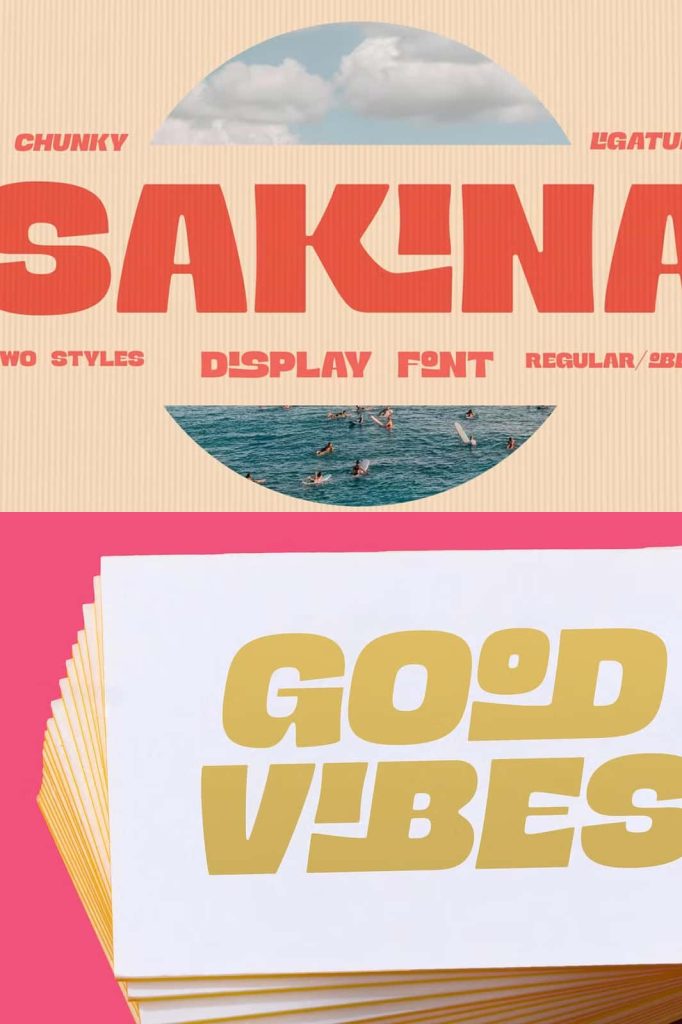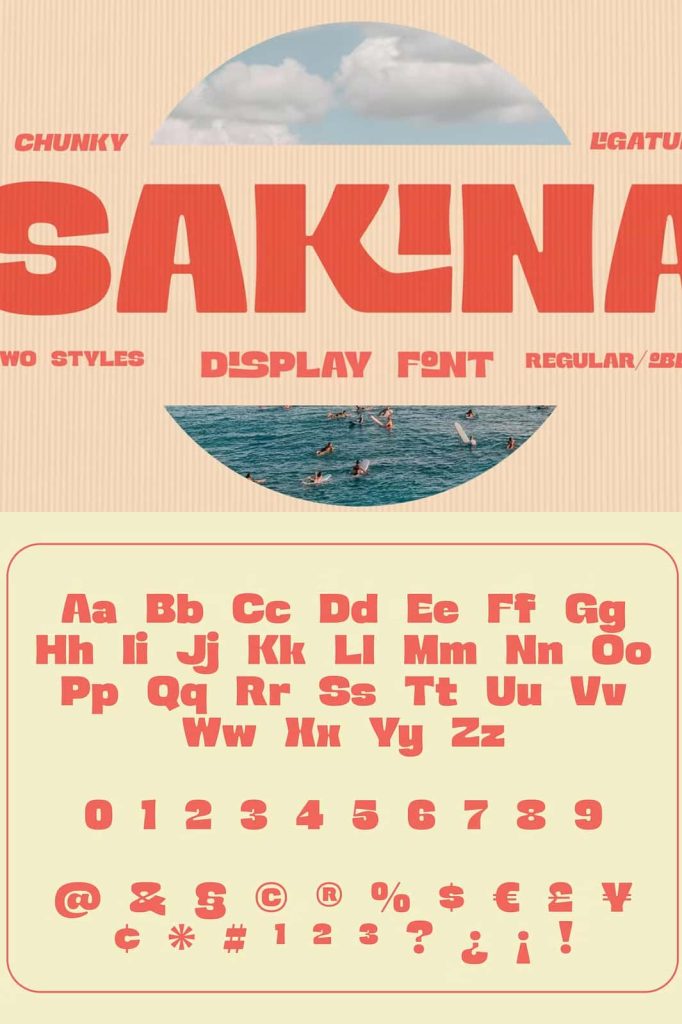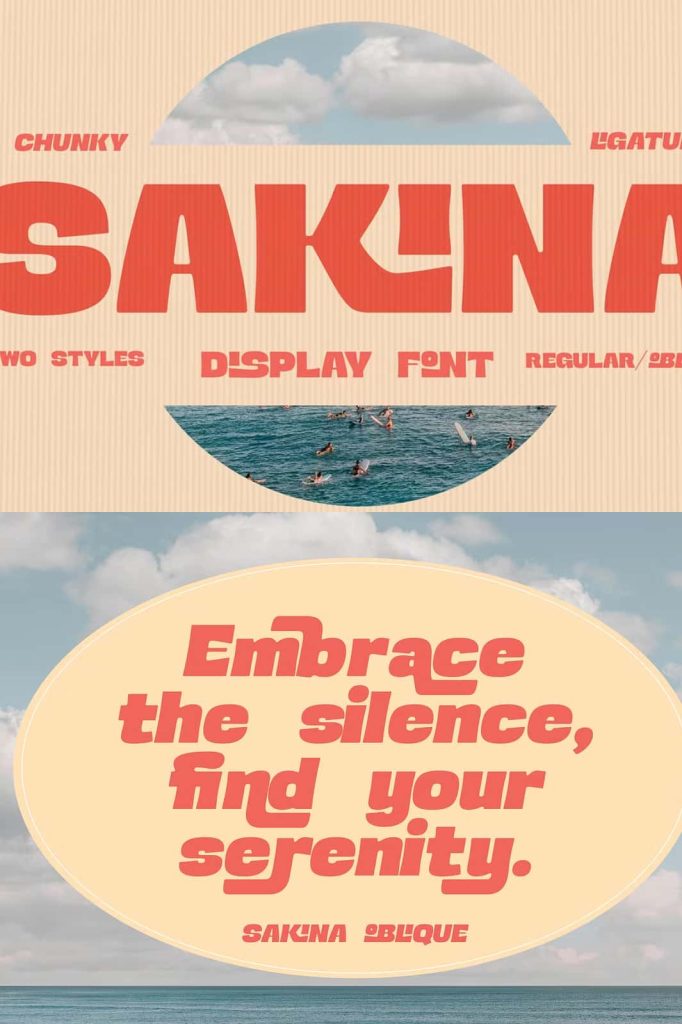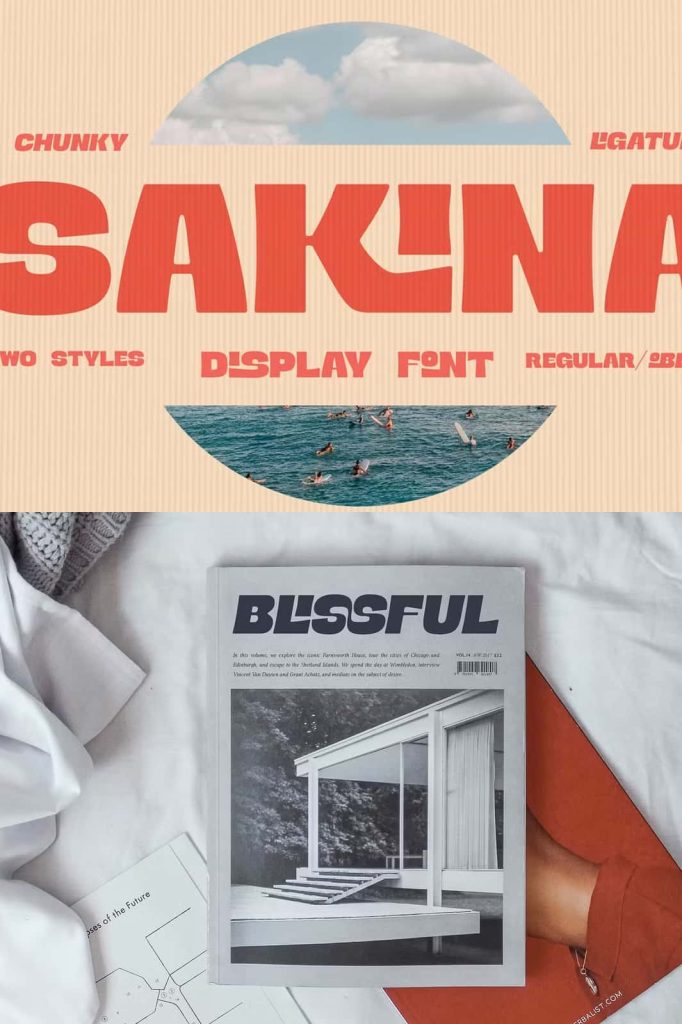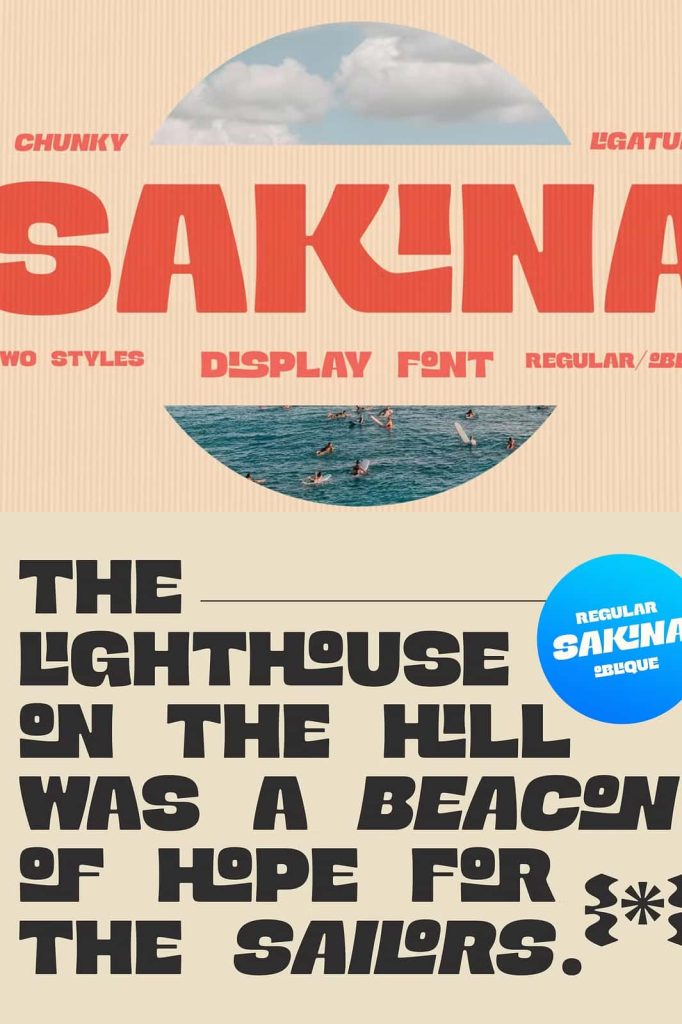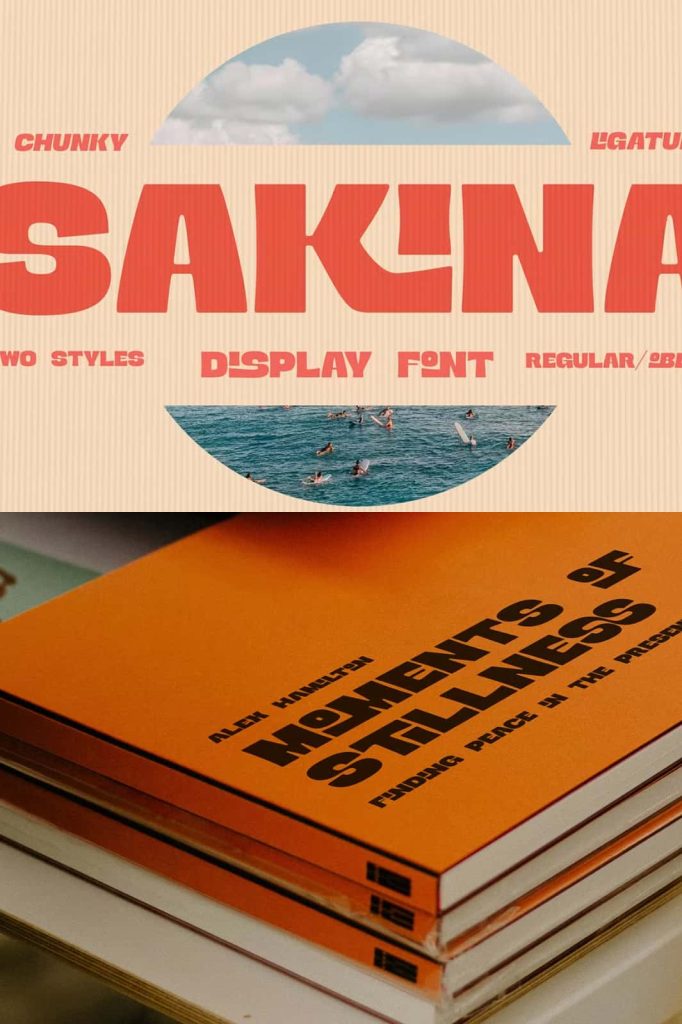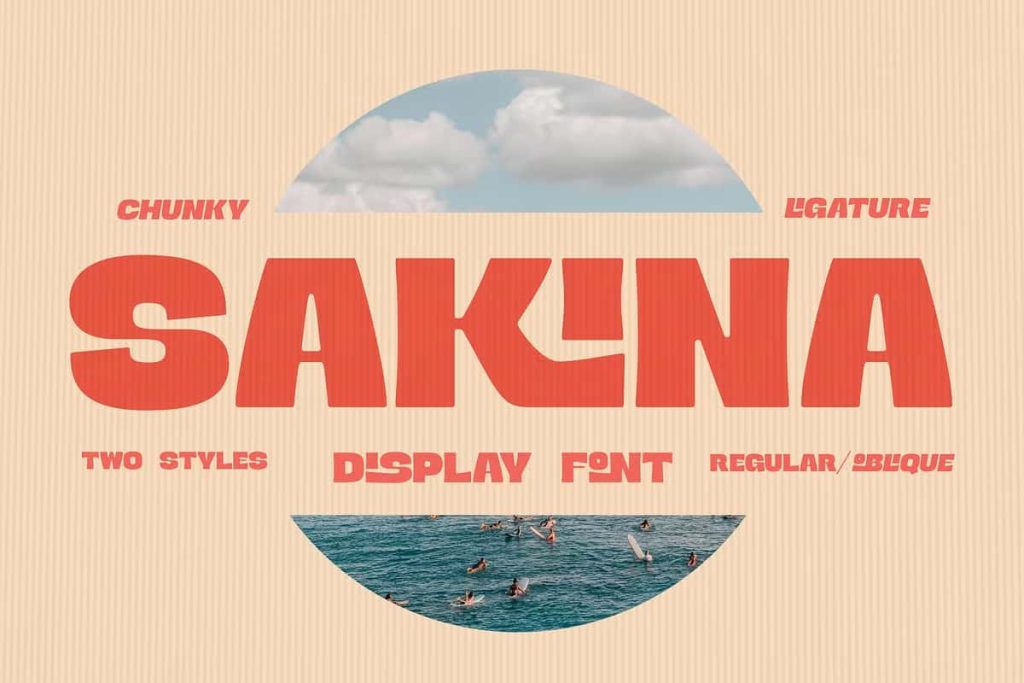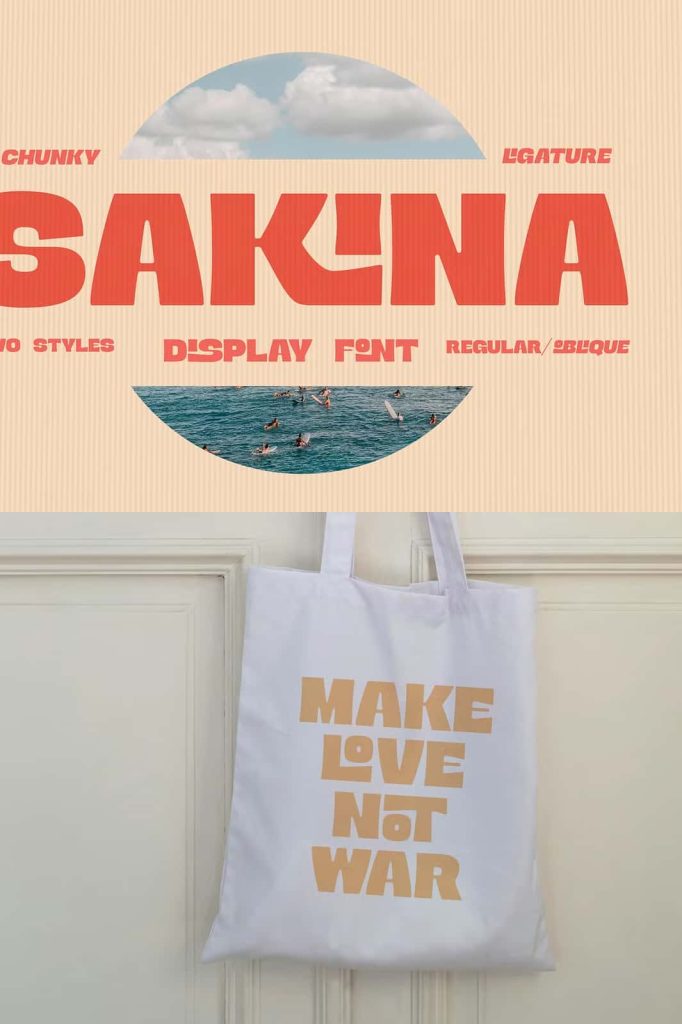
Sakina is a striking display typeface that commands attention. With its bold, high contrast, retro-inspired design, Sakina brings a sense of playful nostalgia to your projects.